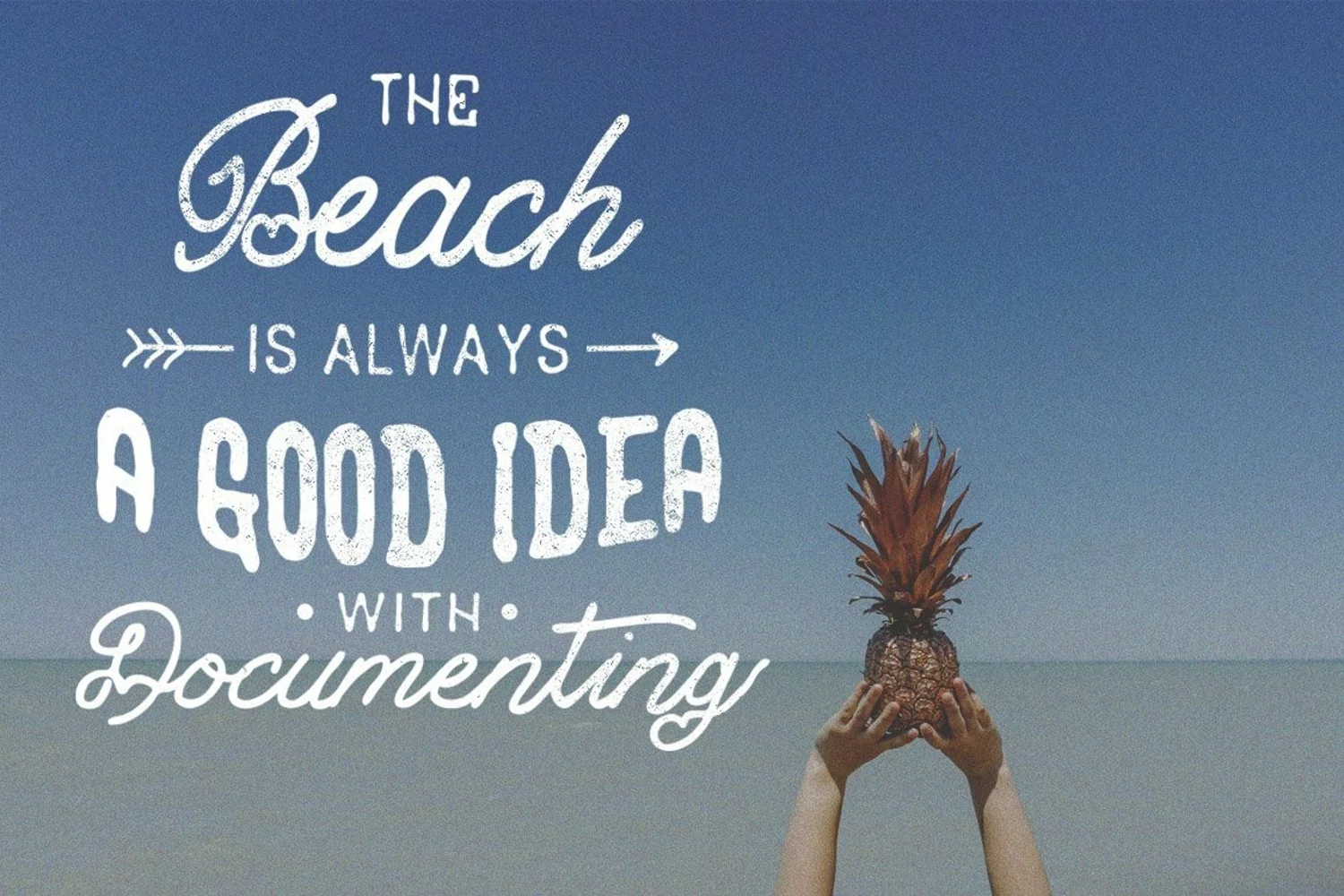
Web Font Summer 3 Font Bundles
My font is handmade font with combining vintage style. and hand painted typeface designed to help you create the look of stunning custom hand-lettering.
You can applied to logos, wedding invitation, display, clothing, quotes, poster, Print Ads, Digital Ads, Promotion Product, video bumper, happy birthday, t-shirt, headlines, headline, badges, cover design, and all for display purposes and many more.
1. Aloevery Bold
2. Stay humble Low & Uppercase
3. Dreaming typeface Low & Uppercase
4. Extra bonus ornaments.